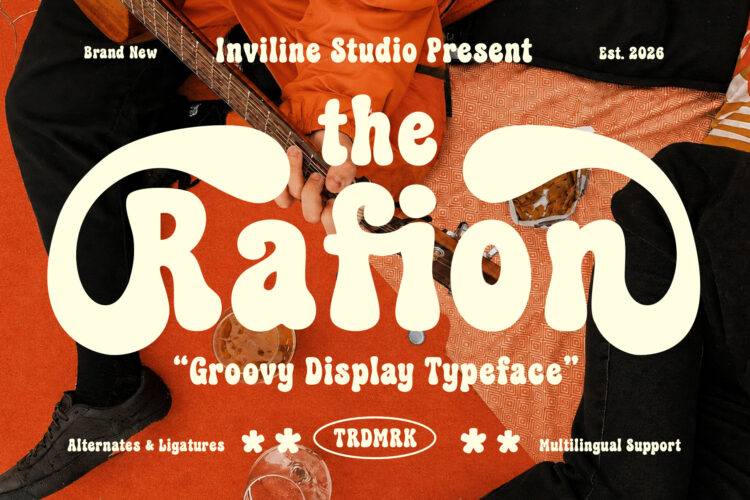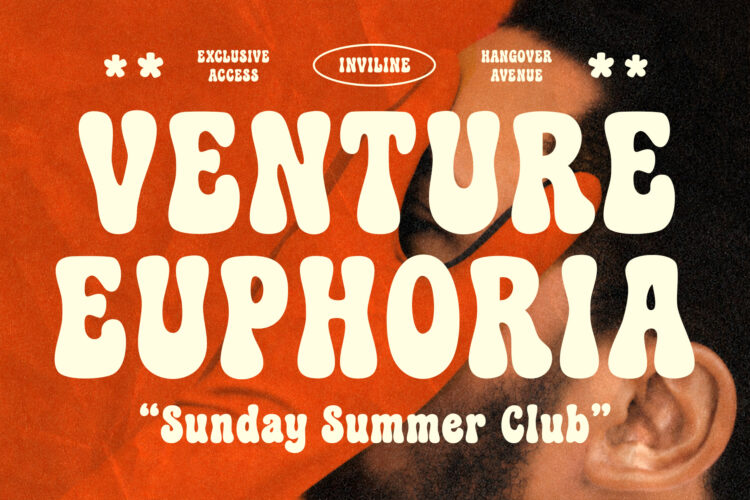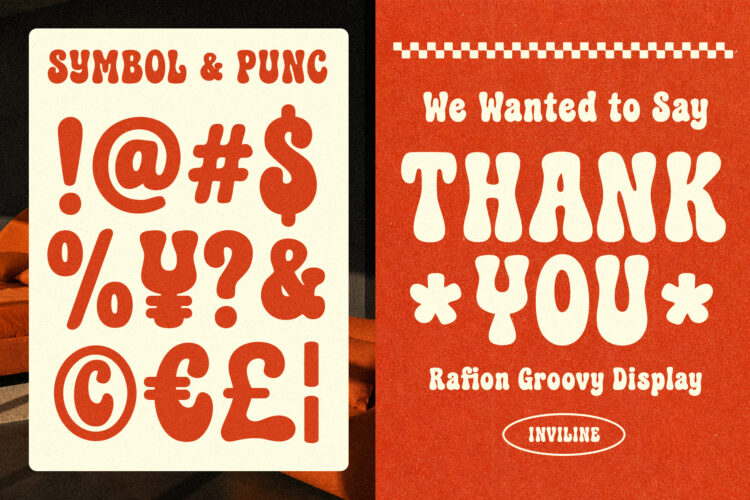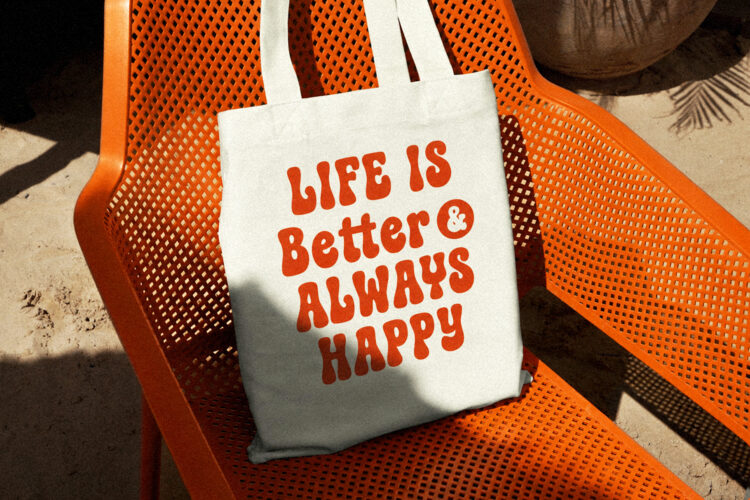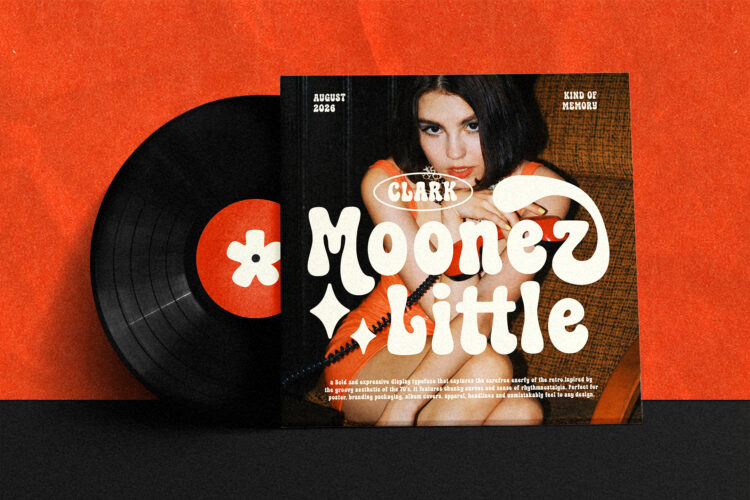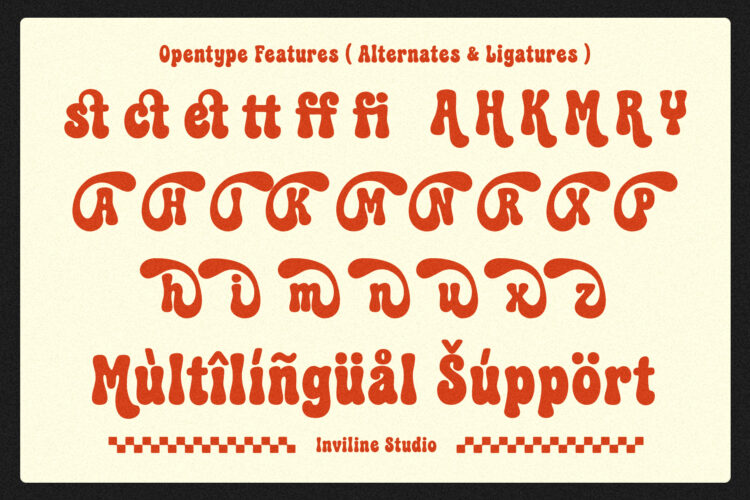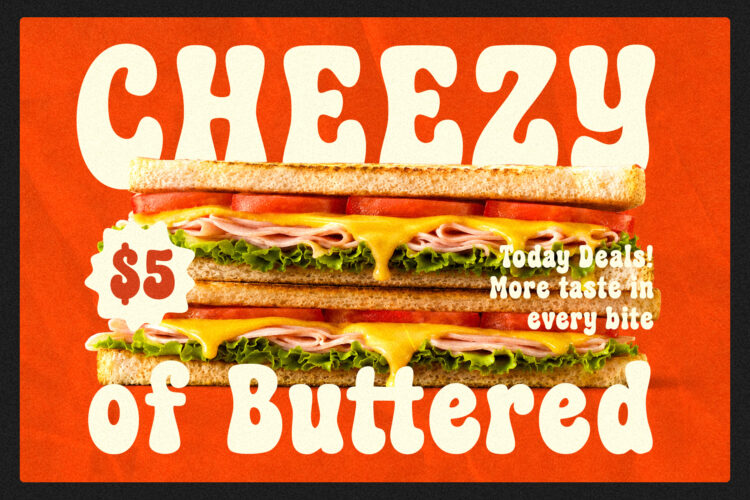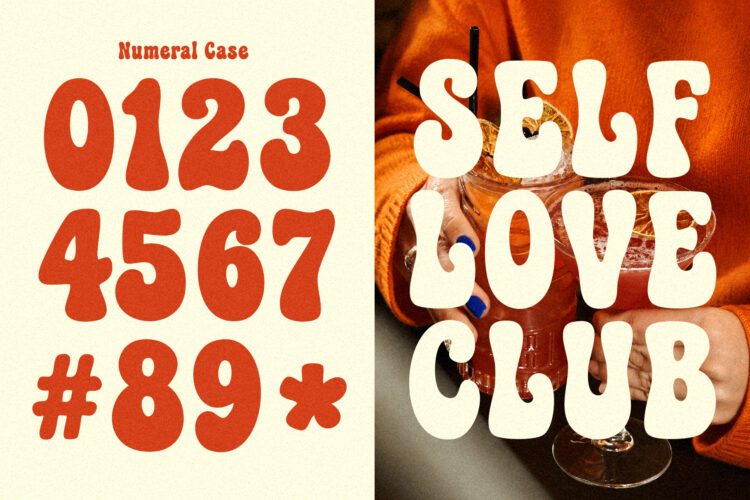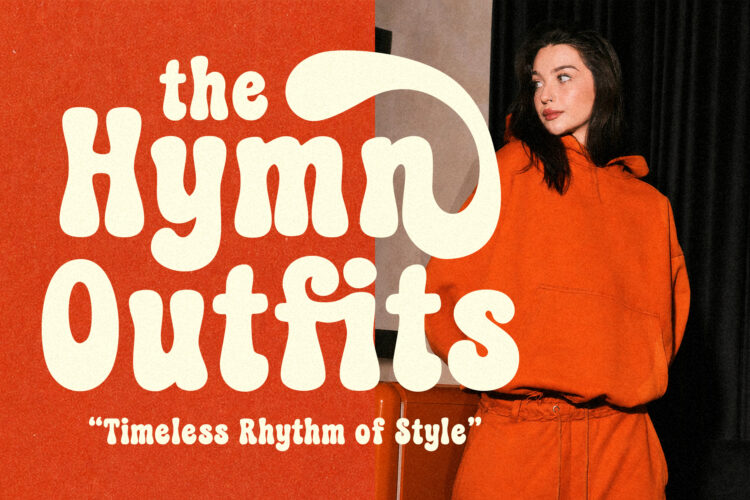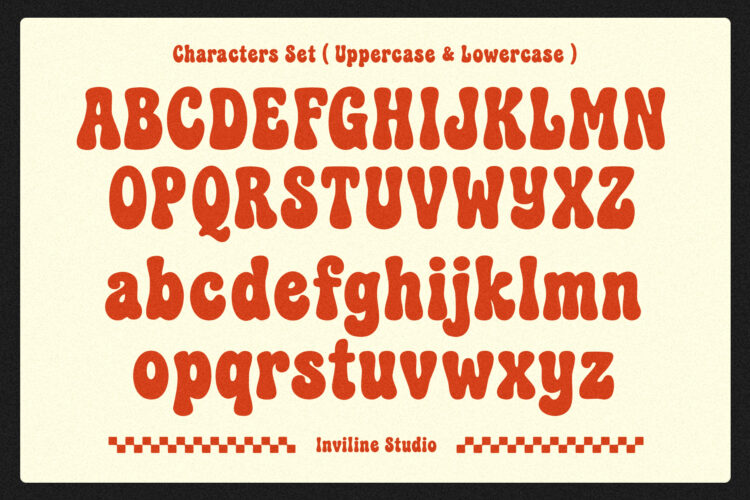
Rafion is a bold groovy display font inspired by the playful spirit of 70s typography. Its chunky curves, rounded forms, and organic details bring a fun, nostalgic personality to every design.
Perfect for branding, posters, album covers, packaging, apparel, editorial graphics, social media, and bold headlines.
Features
- Bold groovy retro style
- Chunky rounded letterforms
- Uppercase & lowercase
- Stylistic alternates
- 6 ligature pairs
- Numerals & punctuation
- Multilingual support
- Strong display impact
Ideal For
- Retro branding
- Posters & events
- Album artwork
- Packaging
- Apparel & merchandise
- Editorial design
- Social media graphics
- Logos & headlines
Design Tips
Use Rafion at medium to large sizes to highlight its chunky and expressive forms. Pair it with a clean sans serif for contrast and a stronger retro-inspired composition.